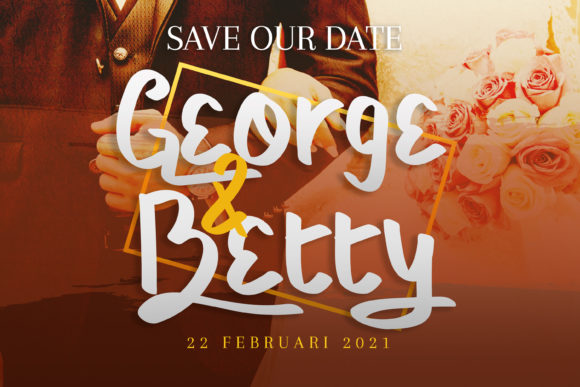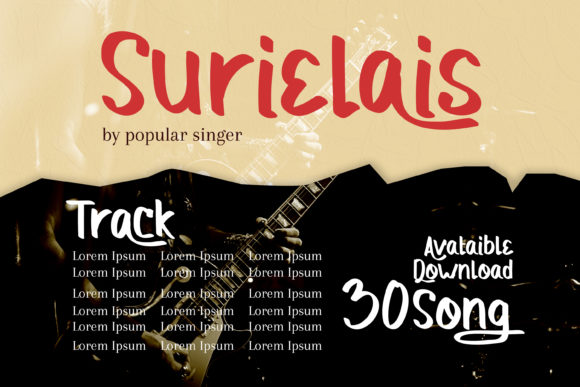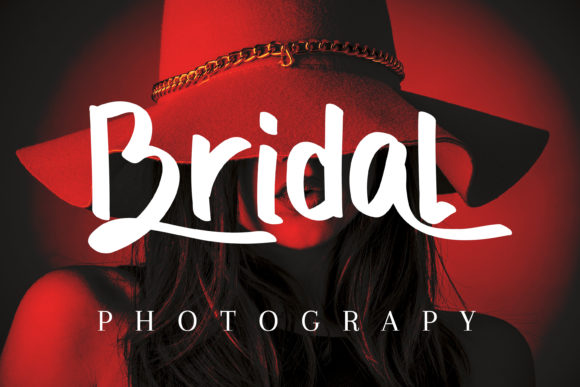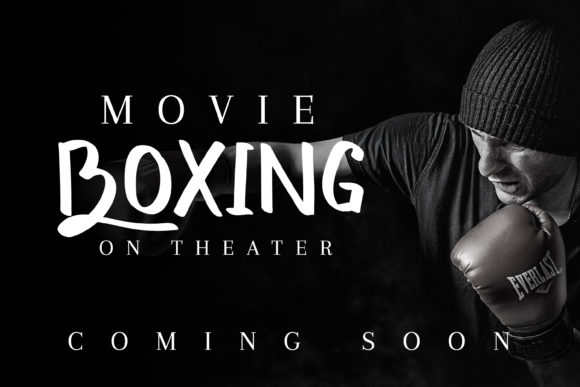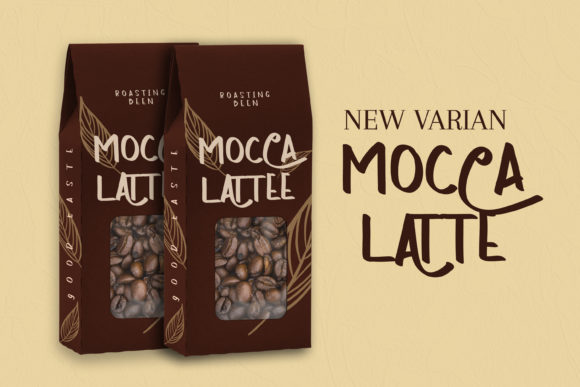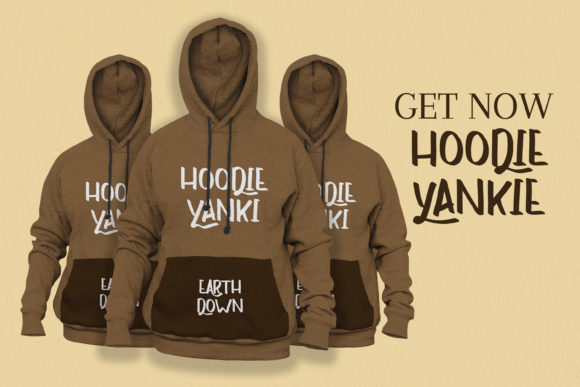
The Sweet Spot: Discovering the Charm of Bellacy Font
I’ll never forget the time I was working on a project for a client’s wedding invitation suite. I had a clear vision of what I wanted to achieve – a whimsical, romantic feel that captured the couple’s playful and adventurous spirits. But, as I began to sift through my font library, I found myself stuck. Nothing seemed quite right. That’s when I stumbled upon Bellacy Font, and it was love at first sight! 💕
Bellacy is a sweet and friendly handwritten font that has become a staple in my design toolkit. Its natural and unique style makes it incredibly fitting for a large pool of designs. The only limit is your imagination! In this article, I’ll share with you why I’m so fond of Bellacy, its features, and how to make the most of it in your designs.
What I Love About Bellacy ✨
- ✅ PUA encoded: This means you can access all of the glyphs and swashes with ease, giving you a wide range of creative possibilities.
- ✅ Unique and friendly style: Bellacy’s handwritten charm is perfect for designs that require a personal touch.
- ✅ Highly versatile: From wedding invitations to branding, packaging, and more, Bellacy can adapt to various design needs.
- ✅ Ease of use: Whether you’re a seasoned designer or a creative hobbyist, Bellacy is easy to work with, even for those new to font design.
While Bellacy is an excellent font, there are a few minor considerations to keep in mind:
- ⚠️ Legibility at small sizes: Like many handwritten fonts, Bellacy may lose some legibility when used at very small sizes. It’s best used at larger sizes or for display purposes.
- ⚠️ Overuse of swashes: While the swashes in Bellacy are beautiful, using too many can make your design look cluttered. Balance is key.
For those working in Adobe Creative Cloud, Bellacy shines with its OpenType features:
The Story Behind Bellacy: Designer Inspiration
While the specific story behind Bellacy’s creation might not be widely known, it’s easy to imagine that its designer was inspired by the beauty of handwritten letters and the joy of crafting something unique. Fonts like Bellacy remind us of the power of handwriting in digital design, bringing a touch of warmth and personality to our projects.
Q: What is PUA encoding, and why is it important?
A: PUA (Private Use Area) encoding allows for a wide range of glyphs and swashes to be included in a font, making it more versatile and fun to use. This means you can access additional characters and designs within the font.